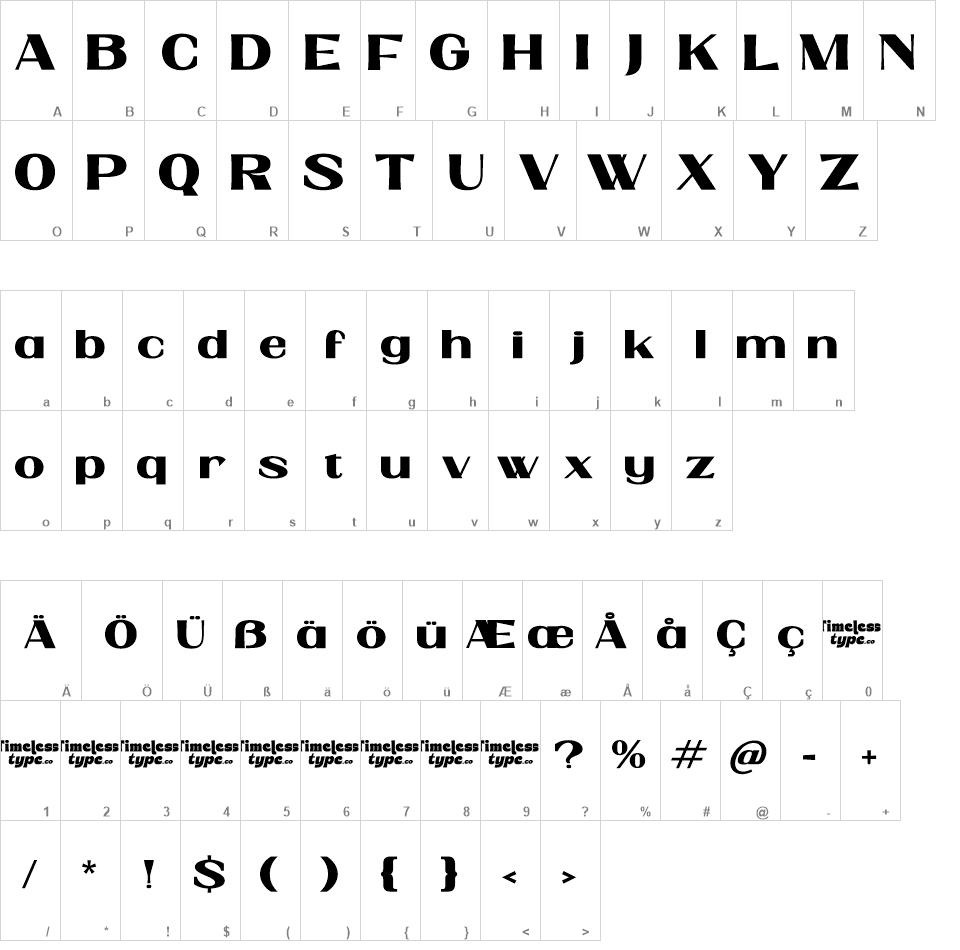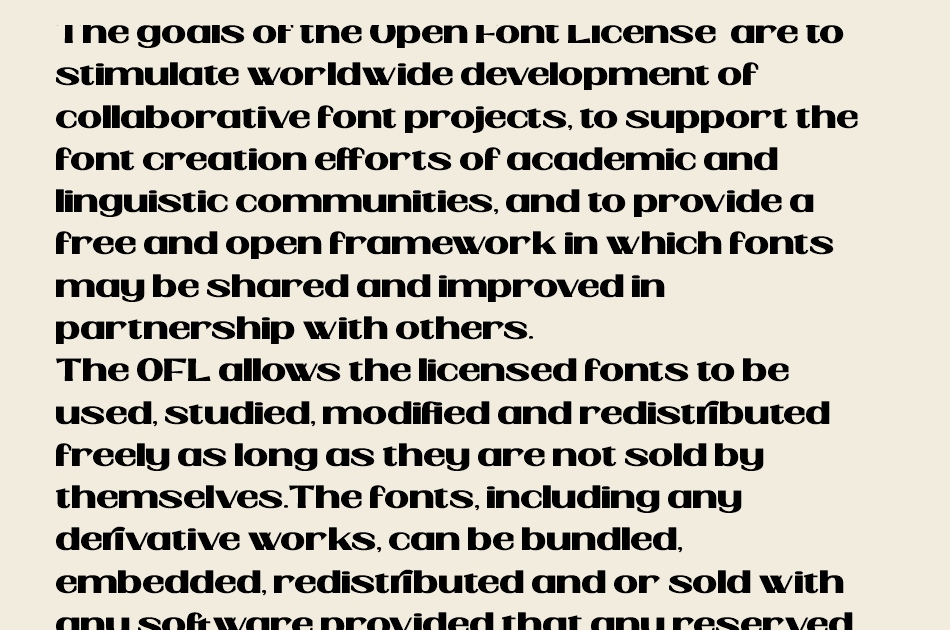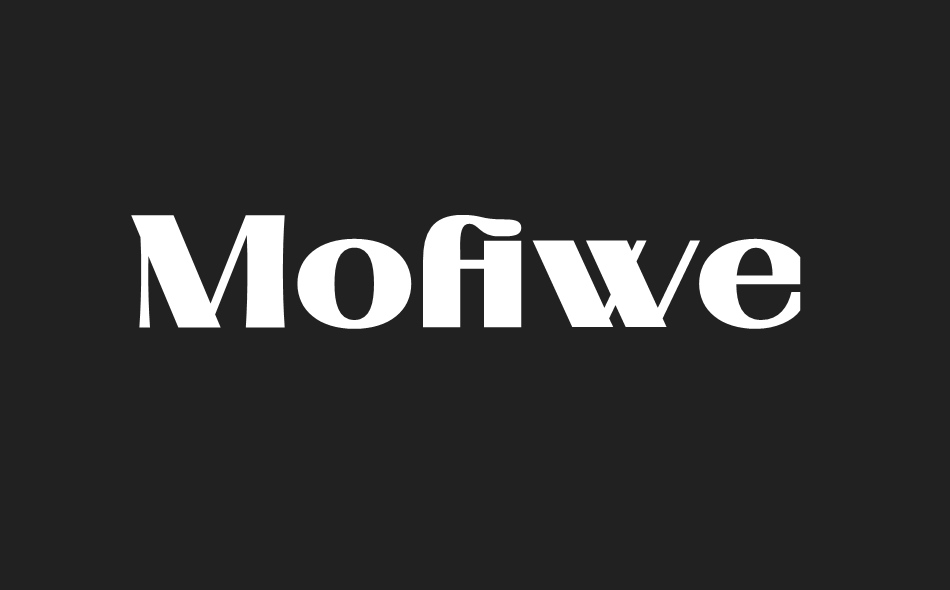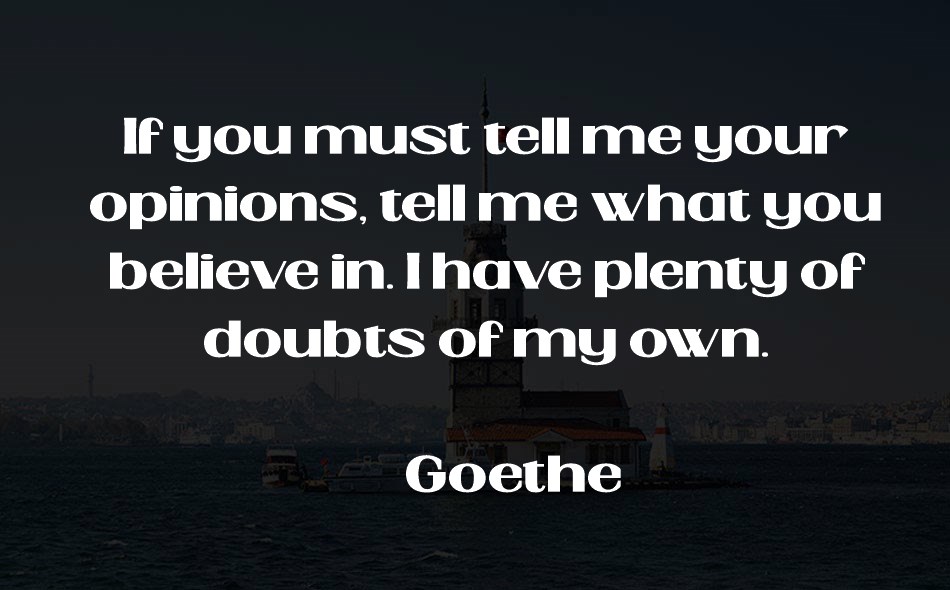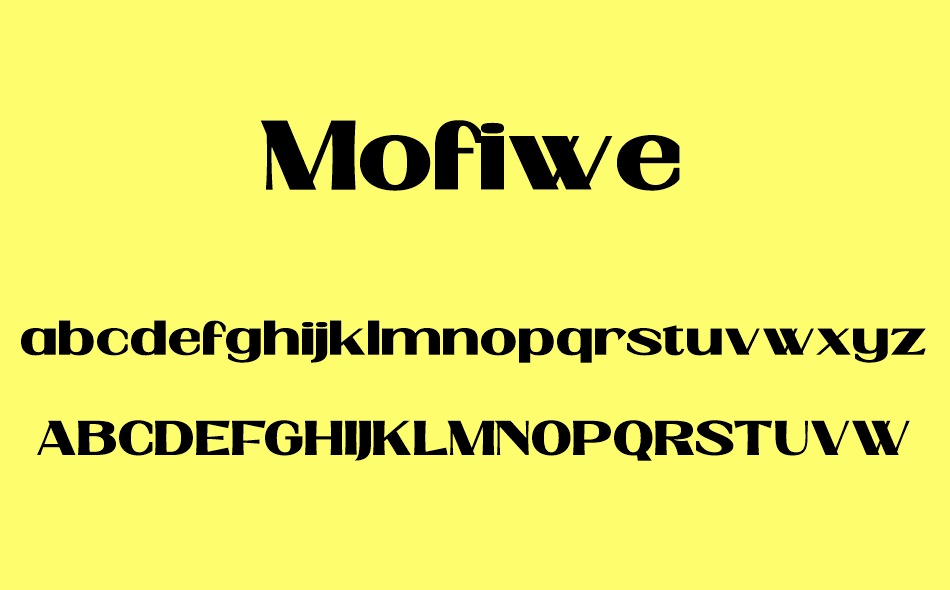
Mofiwe font
Unleash a wave of nostalgic warmth and contemporary cool with Mofiwe Sans, a dynamic display typeface designed to make a statement. Mofiwe masterfully blends the clean confidence of a sans serif with the elegant, flared terminals of a classic serif, creating an unforgettable visual rhythm. Its groovy curves and high-contrast strokes inject an instant dose of personality and approachable charm, ensuring your message is not just read, but felt.
Dive into a playground of typographic possibilities and take full creative control of your designs. Mofiwe Sans is packed with a treasure trove of OpenType features, including 27 unique alternates and 11 stunning, context-aware ligatures that allow you to craft truly bespoke headlines and logotypes. With a robust library of 368 glyphs, this font provides the flexibility you need to add subtle flourishes or bold transformations, giving you endless customization options to make every project one-of-a-kind.
Break boundaries and speak to a global audience with Mofiwes extensive multilingual support. Engineered for clarity and style, this typeface ensures your brands voice remains powerful and consistent across international markets. Whether you're designing for a local boutique or a multinational campaign, Mofiwe Sans provides the typographic foundation for seamless and impactful communication, adapting effortlessly to a wide range of languages and cultural contexts.
Mofiwe Sans is the ultimate creative asset for forward-thinking brands and designers. Its the perfect choice for creating standout branding, eye-catching packaging, groovy posters, and vibrant social media content that resonates with a modern audience. Built for those who value authenticity and human connection, Mofiwe Sans helps you craft designs that are bold, inviting, and impossible to ignore.